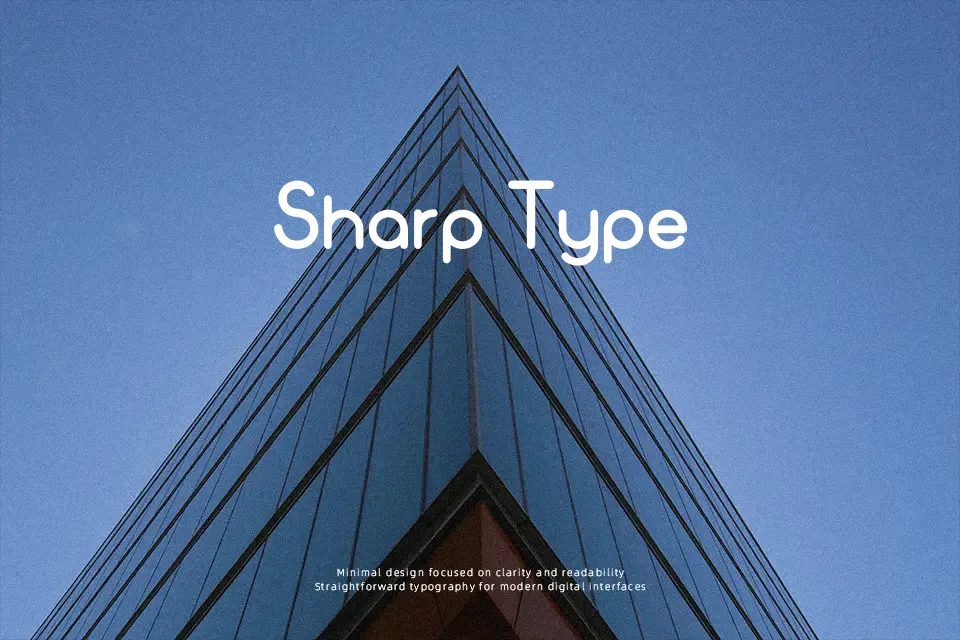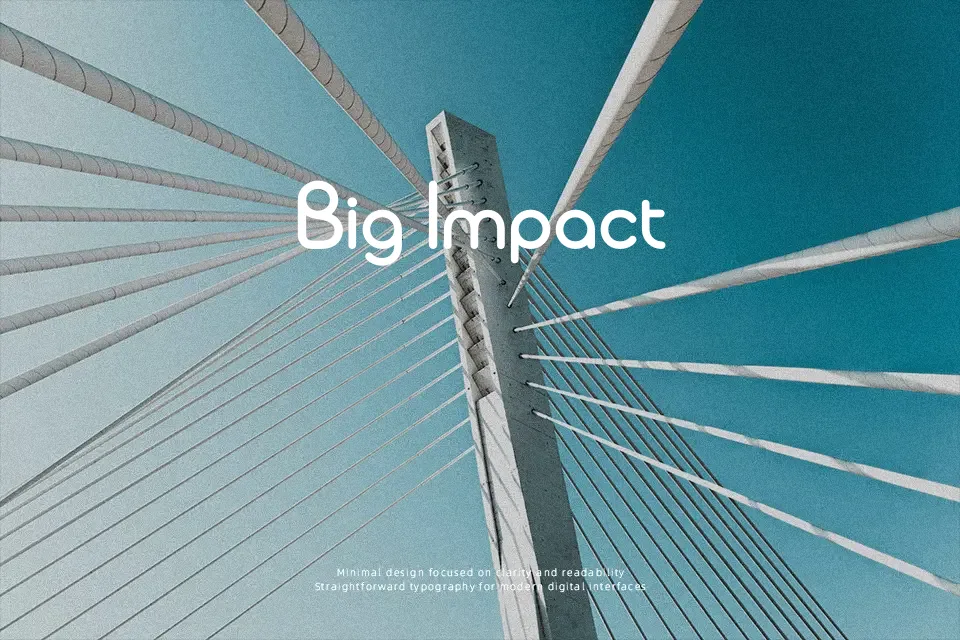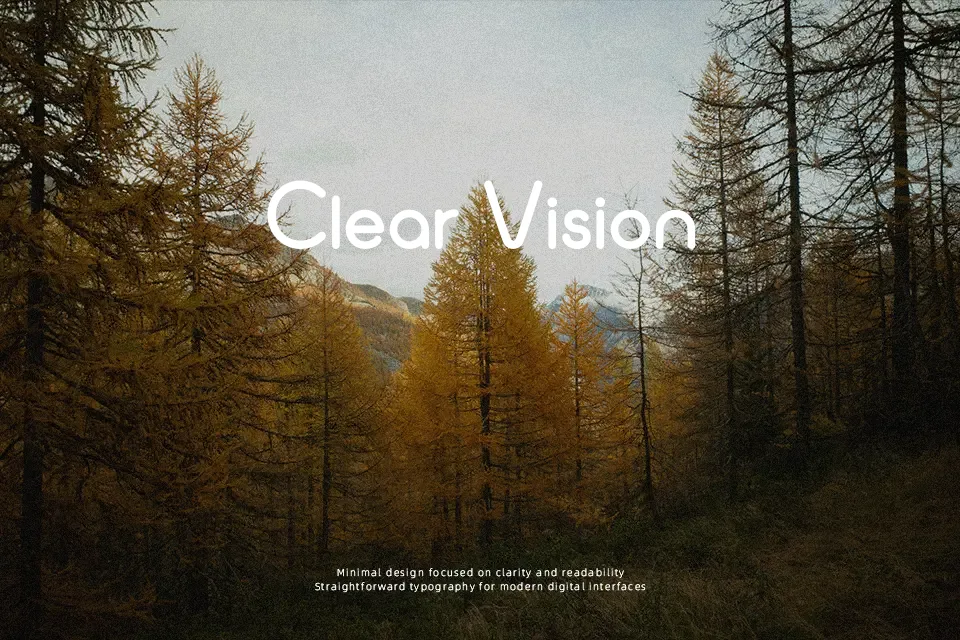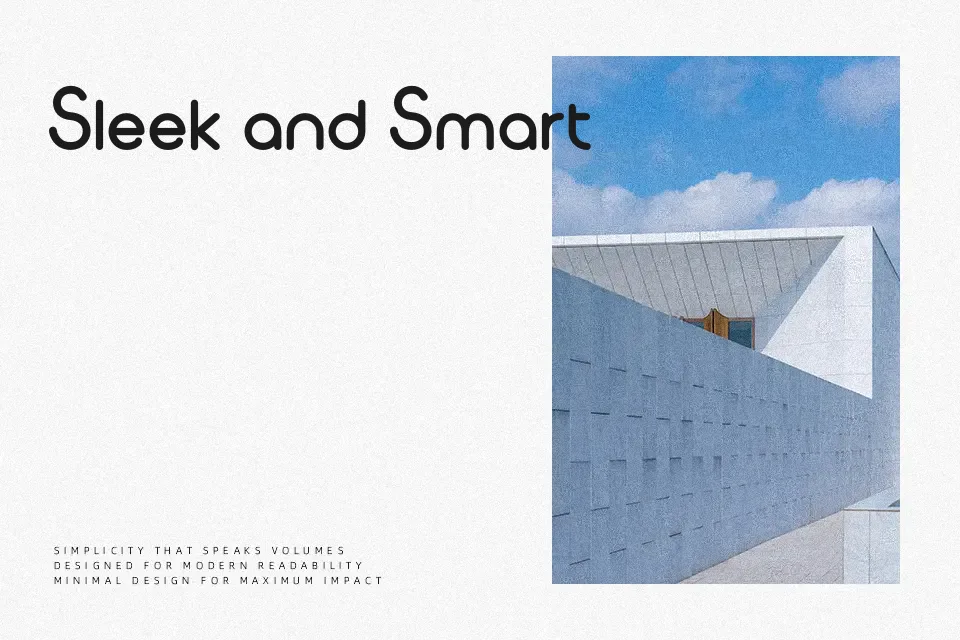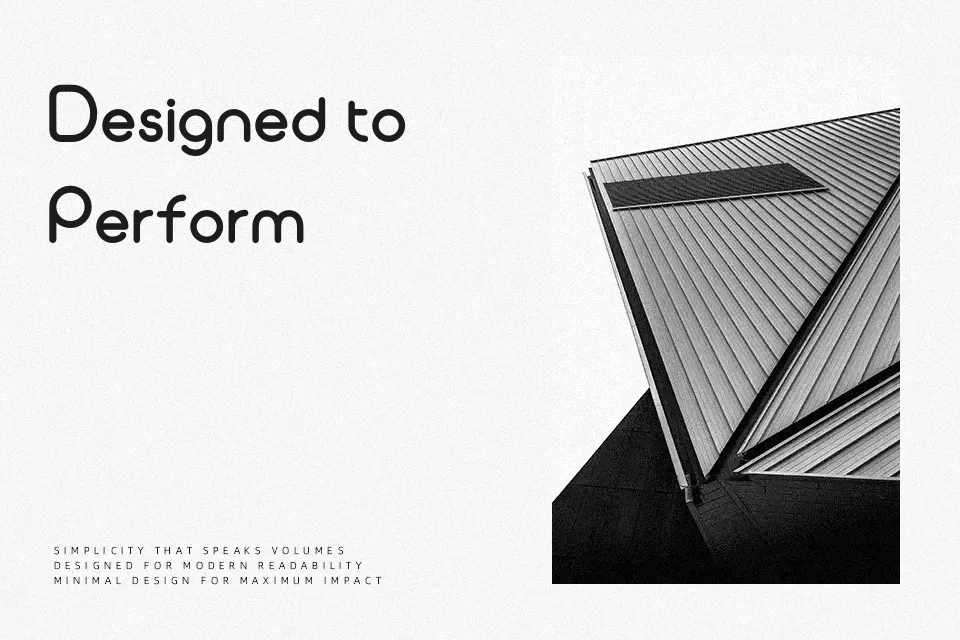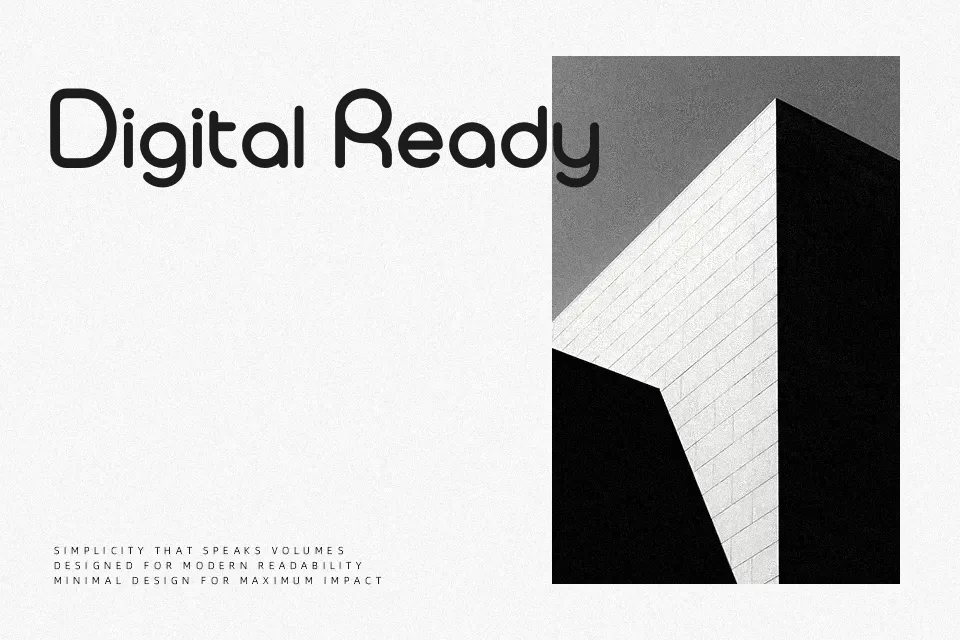
Peasone Font
Peasone Font works best in short, prominent lines where its rounded sans serif forms can set the tone quickly. The letterforms use solid, even strokes and compact proportions, giving uppercase and lowercase text a consistent, graphic rhythm. Spacing appears controlled rather than airy, so words hold together well in posters, labels, and social media titles. Numerals and common punctuation follow the same uncomplicated construction. The typeface remains clear at medium and large sizes, but its distinctive display character is less comfortable for dense copy. It is a practical choice when a headline needs warmth and weight without relying on script details.
Best For: playful product labels,poster headlines,social media graphics,kids event signage
Perfect for headline, packaging, and poster, with a bold and display style.